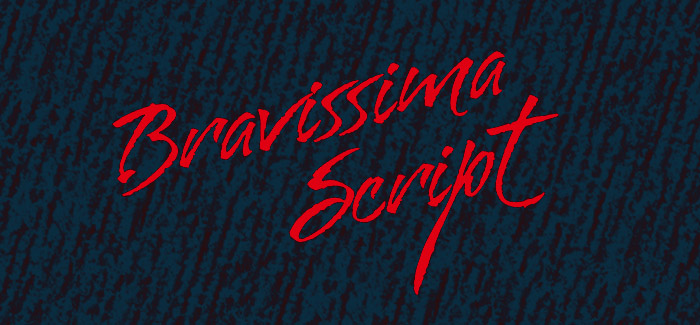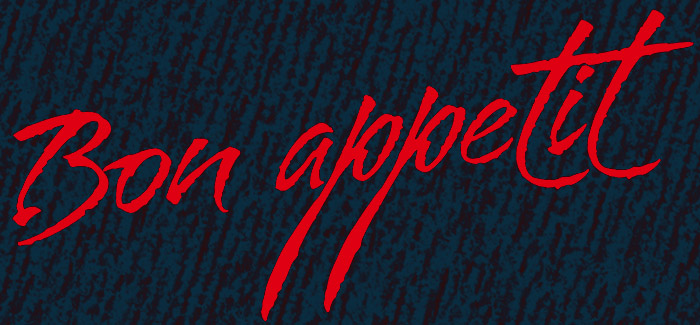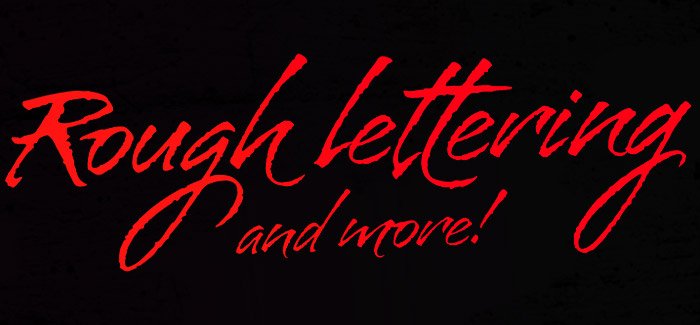
Bravissima Script font
Bravissima Script font is the dynamic and spirited embodiment of the 1970s, when food was food and the wild brush ruled. It tells you to eat, and to do it right now. Another perfect blend of traditional Koziupa calligraphy and Paul tech, spiced up with OpenType features like the meal of your dreams. A personal favorite for food packaging design, especially hot stuff.
Bon appetit.